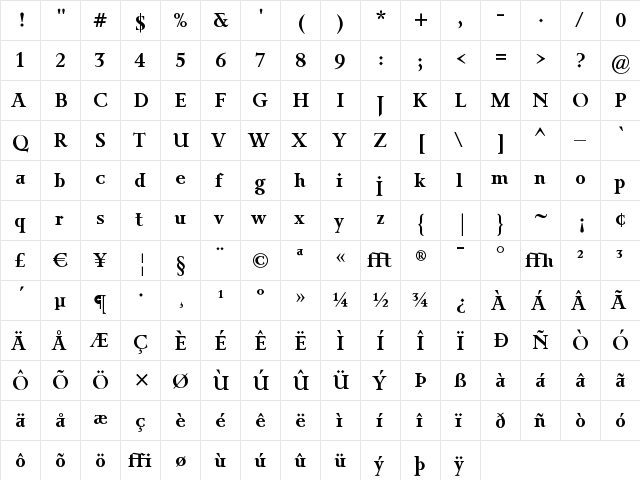
PrioriSerBold Regular
| Designer | Jonathan Barnbrook |
Design Context for PrioriSerBold Typeface
PrioriSerBold is a composed and adaptable typeface that performs quietly and consistently across a wide range of design contexts. The heavy weight commands attention and anchors typographic hierarchies.